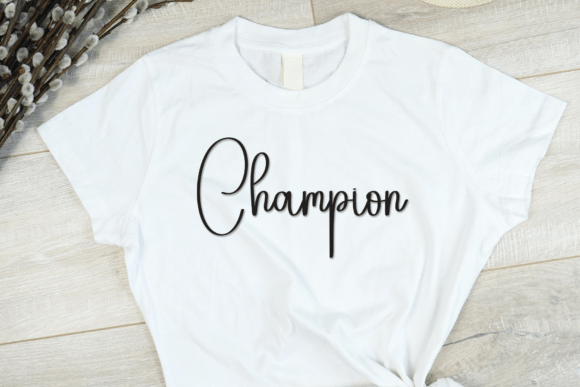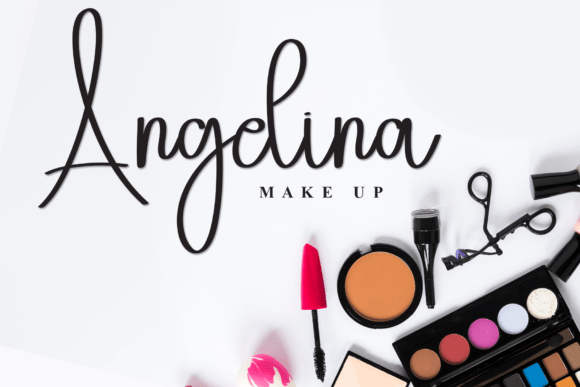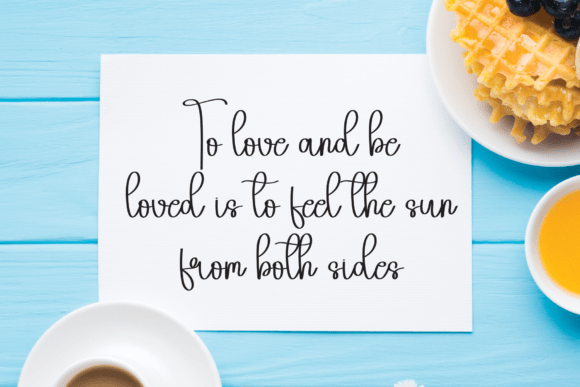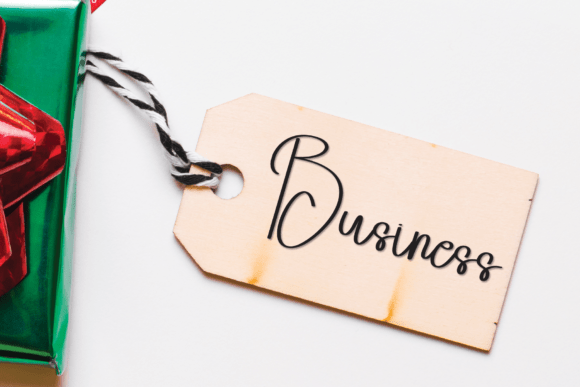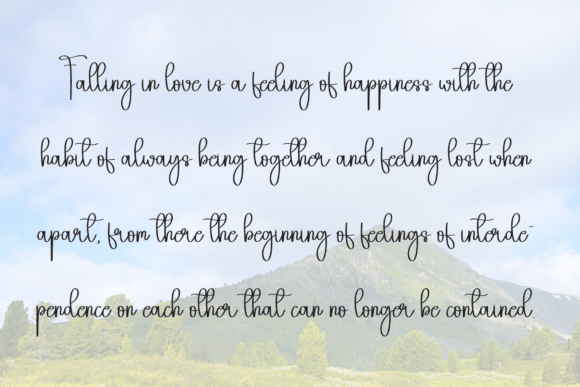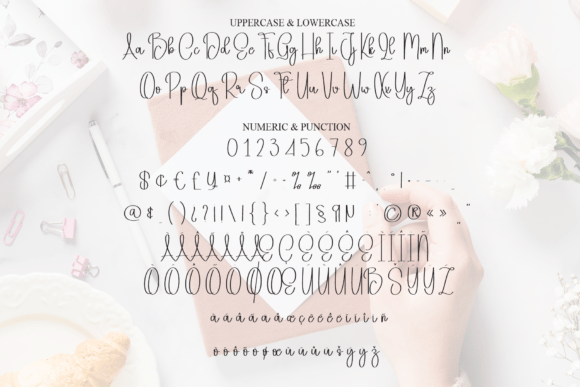
Introduction to Happy Calligraphy Font
As a designer, have you ever found yourself pouring over a blank canvas, searching for the perfect font to bring your creative project to life? The moment of discovery, when you stumble upon a font that captures the essence of your vision, is truly exhilarating. For me, that moment came when I discovered the Happy Calligraphy Font – a stunning script font that exudes elegance and modern charm.
This beautiful font is a treasure trove of design inspiration, featuring fluid strokes, graceful curves, and carefully balanced letterforms that evoke the beauty of hand-drawn calligraphy with a contemporary edge. Whether you’re working on a high-end branding project, crafting a wedding invitation, or creating social media graphics, the Happy Calligraphy Font adds a touch of sophistication and personality to any design.
Key Features of Happy Calligraphy Font
- High-quality, professional font ideal for creative projects, such as wedding invitations, quotes, and artistic designs.
- Features a beautiful, elegant script style with a wide range of ligatures and swashes, perfect for adding a touch of sophistication to any design.
- Perfect for designers looking for a unique and eye-catching font to elevate their creative project, whether it’s a print or digital design.
Honest Review: Happy Calligraphy Font
- ✨ Unique and elegant design, perfect for creative projects
- ✨ High-quality vectors that maintain their crispness even when scaled up
- ⚠️ Limited font styles and variations, which might not be suitable for complex design projects
- ⚠️ Some users may find the font’s size and spacing a bit inconsistent
Overall, I’m quite impressed with the Happy Calligraphy Font. It’s a fantastic design resource for those looking to add a touch of elegance to their creative projects. While it may have some limitations, its high-quality design and user-friendly interface make it a great choice for designers of all levels.
The Happy Calligraphy Font is ideal for creating beautiful and elegant designs for various creative projects, including invitations, quotes, and social media graphics. Its high-quality design and transparent background make it a versatile design resource for designers and non-designers alike.